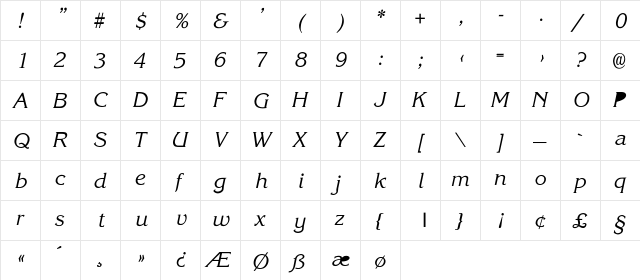
Korina-SemiBold-Ita Regular
Design Context for Korina-SemiBold-Ita Typeface
Korina-SemiBold-Ita takes a measured approach to typography — its balanced proportions and neutral character make it a reliable workhorse for both digital and print work. The slanted form adds forward momentum and visual energy. The heavy weight commands attention and anchors typographic hierarchies.
Pro Tip: Use Korina-SemiBold-Ita for emphasis, pull quotes, and subheadings where its slanted energy can add rhythm to the layout.